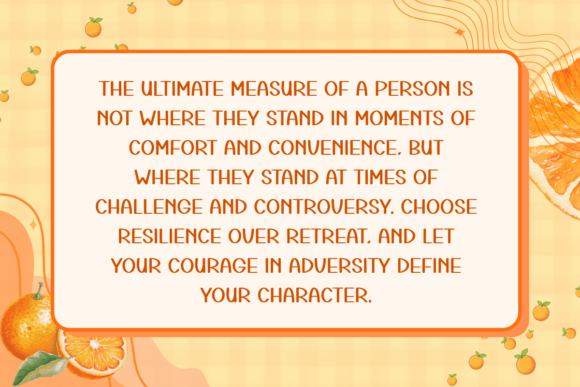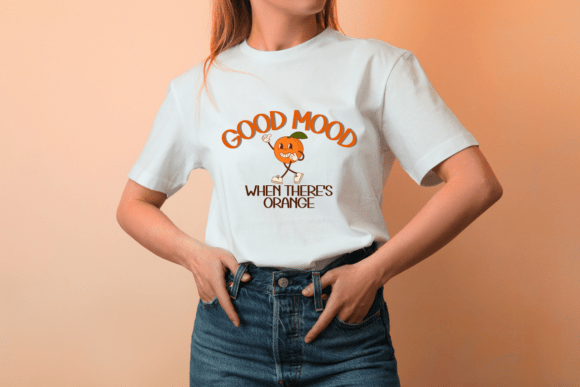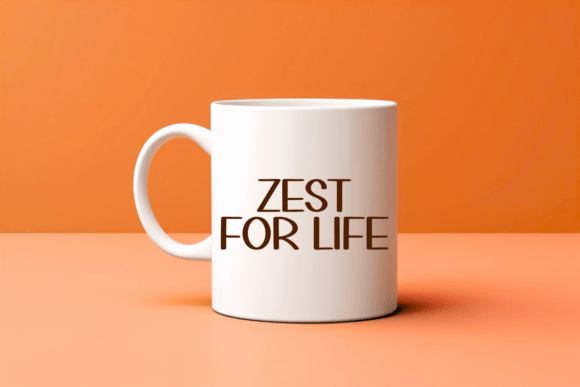
Introduction to Orange Fruits Font
Have you ever been working on a creative project, and the right design element is just out of reach? That’s where the magic of the Orange Fruits Font comes in – a delightful handwriting font that adds a touch of whimsy and charm to your designs. Its cute aesthetic and natural vibes make it the perfect addition to any project, from cute branding to crafting.
Whether you’re a seasoned designer or just starting out, the Orange Fruits Font is a valuable resource to have in your toolbox. Its versatility and high quality make it an excellent choice for a variety of applications, from digital designs to physical crafts. And the best part? It’s available for free download, making it an accessible design resource for everyone.
Key Features of Orange Fruits Font
- Unique, hand-drawn design with a playful and vibrant feel, perfect for creative projects.
Honest Review: Orange Fruits Font
As a designer, I’m always on the lookout for high-quality design resources to elevate my creative projects. The Orange Fruits Font caught my eye, and I was eager to put it to the test.
What works well: ✨ The font is incredibly versatile, with a range of styles and weights that make it perfect for everything from food labels to branding materials. The transparent background option is also a great feature, allowing for seamless integration with images and other design elements.
- ✨ High-quality design with a unique and playful feel
However, there are a few limitations: ⚠️ The font could benefit from more language support, and the font files could be optimized for better performance.
Overall, I’m impressed with the Orange Fruits Font. While it’s not perfect, its unique style and high-quality design make it a valuable addition to any designer’s toolkit. With a few tweaks to address the limitations, I’d highly recommend it for any creative project.
The Orange Fruits Font is a unique and vibrant design resource ideal for creative projects. With its high quality and transparent background, it’s perfect for adding a pop of color to your designs.
Experiment with different font sizes and combinations to create visually appealing designs. Also, use the font in conjunction with other design elements, such as images or graphics, to add depth and interest.
The Orange Fruits Font is perfect for creating eye-catching graphics for social media, logos for small businesses, or illustrations for children’s books. Its vibrant colors and fun design make it an ideal choice for creative projects.